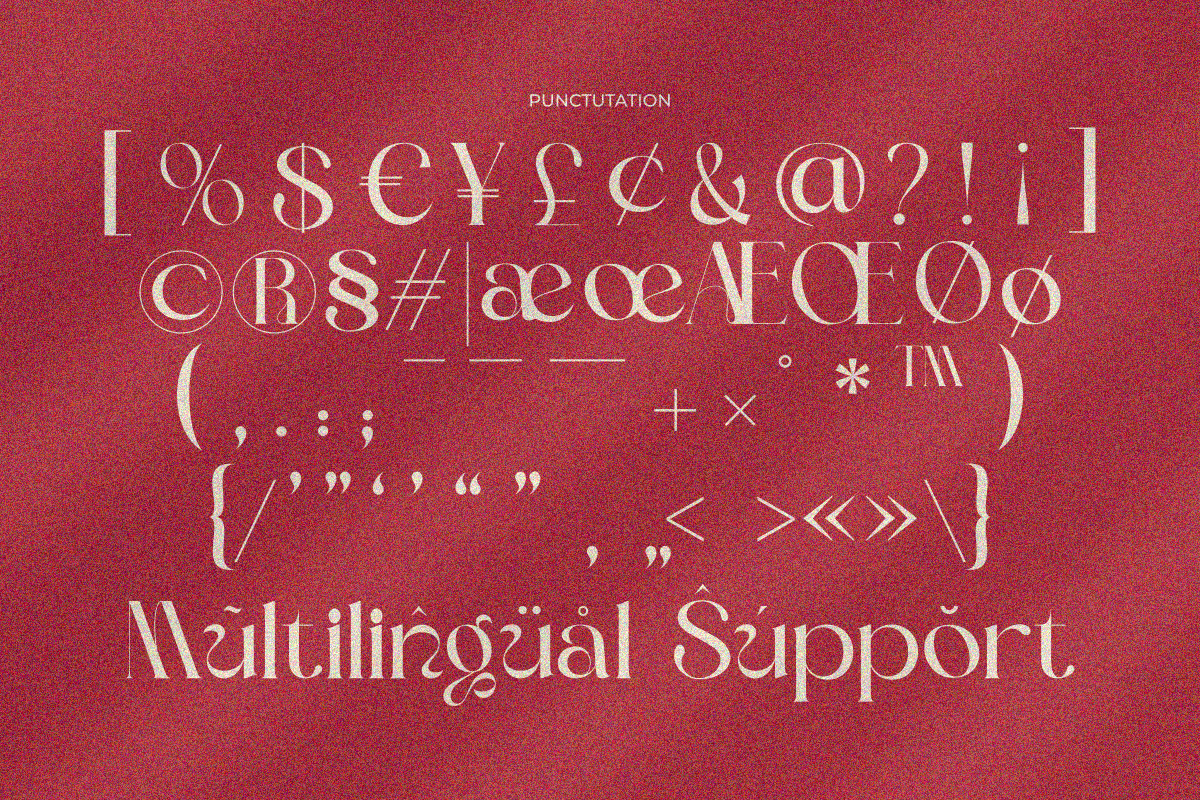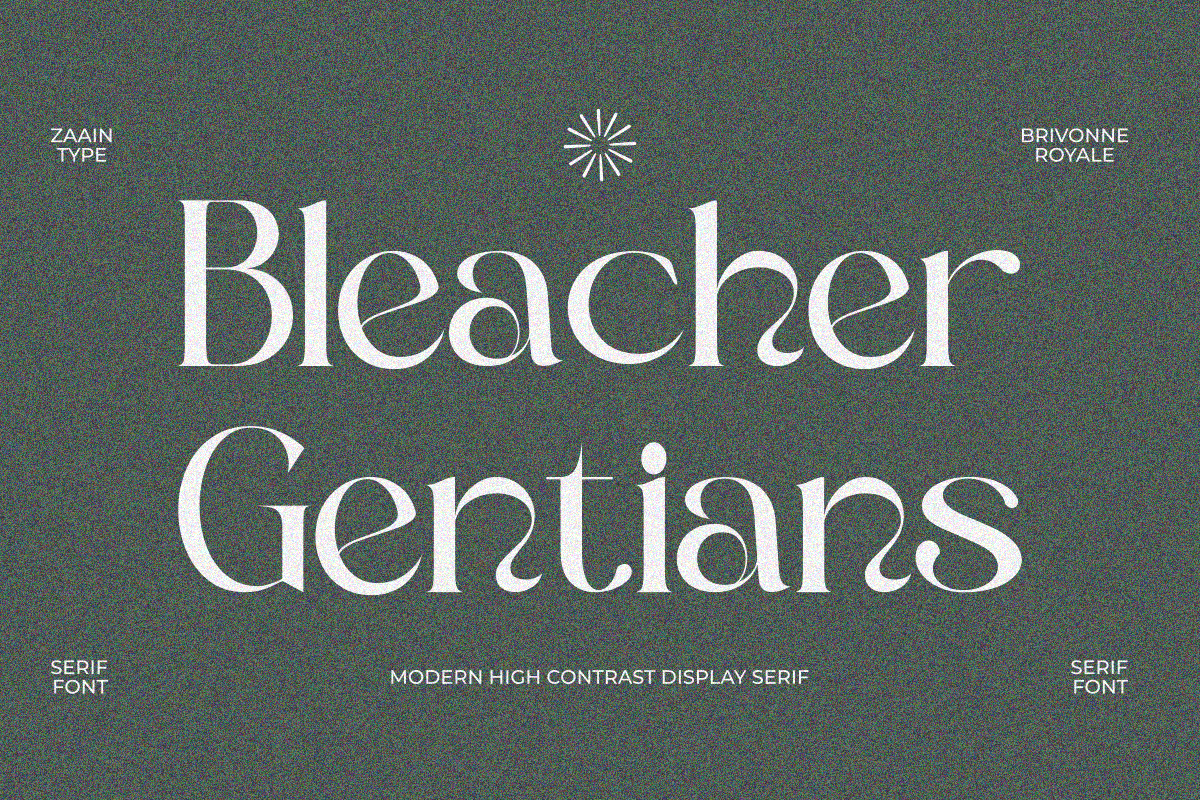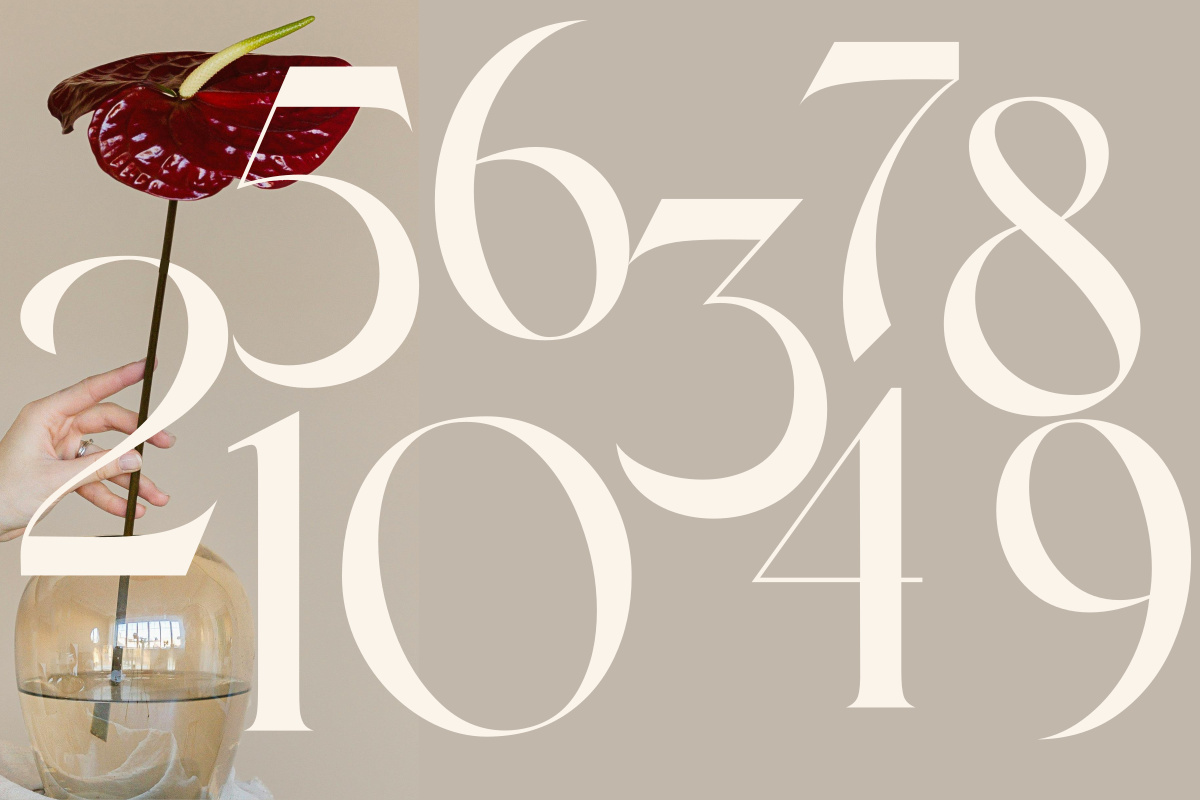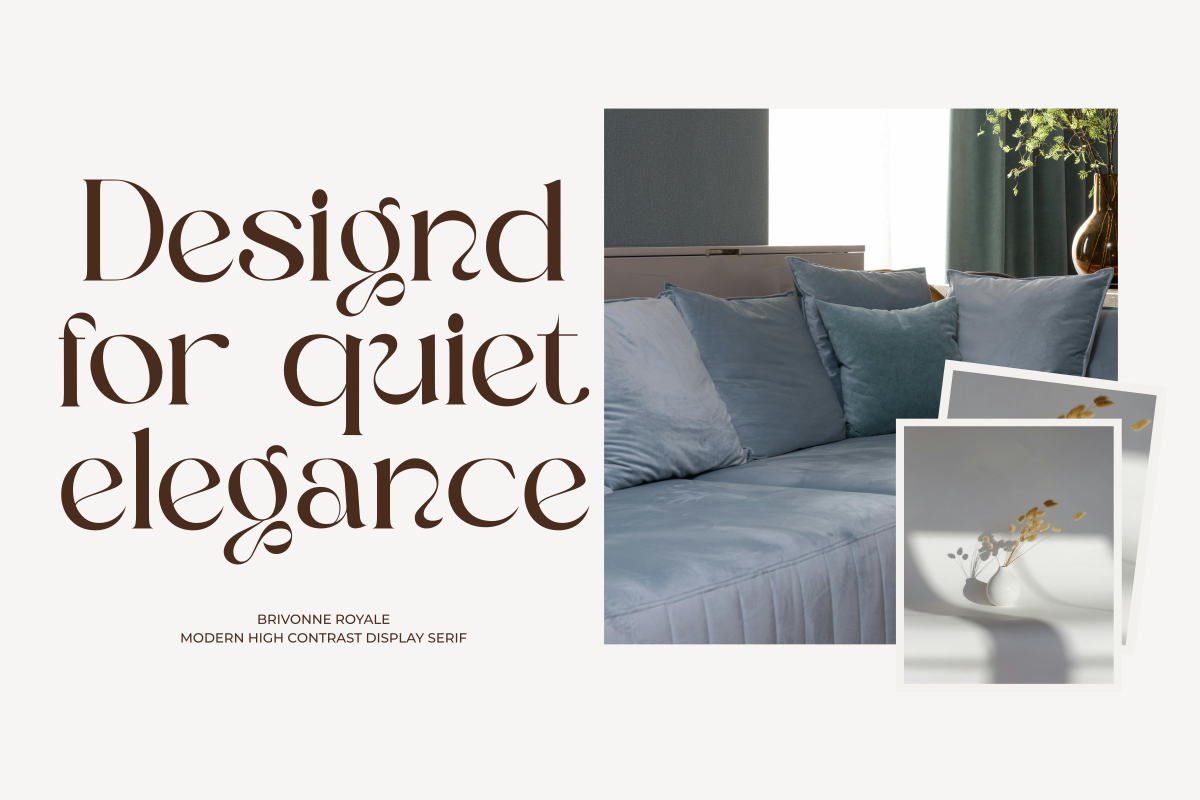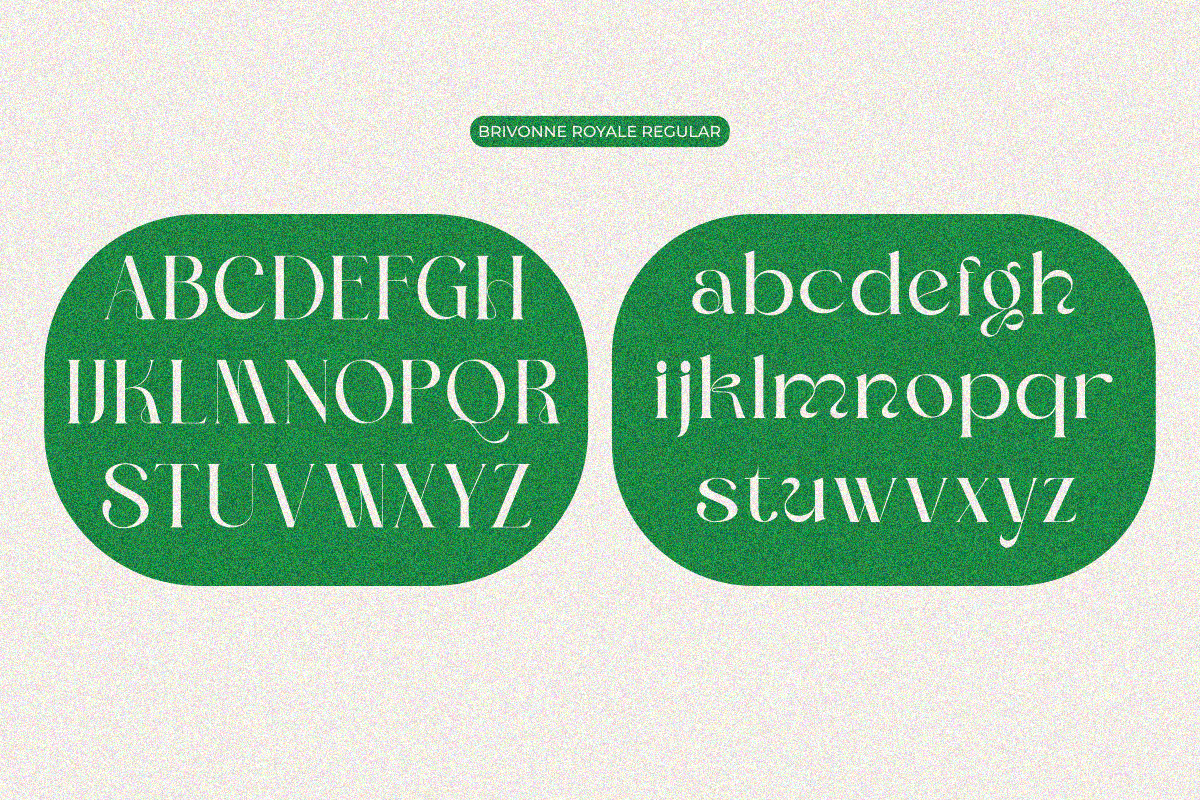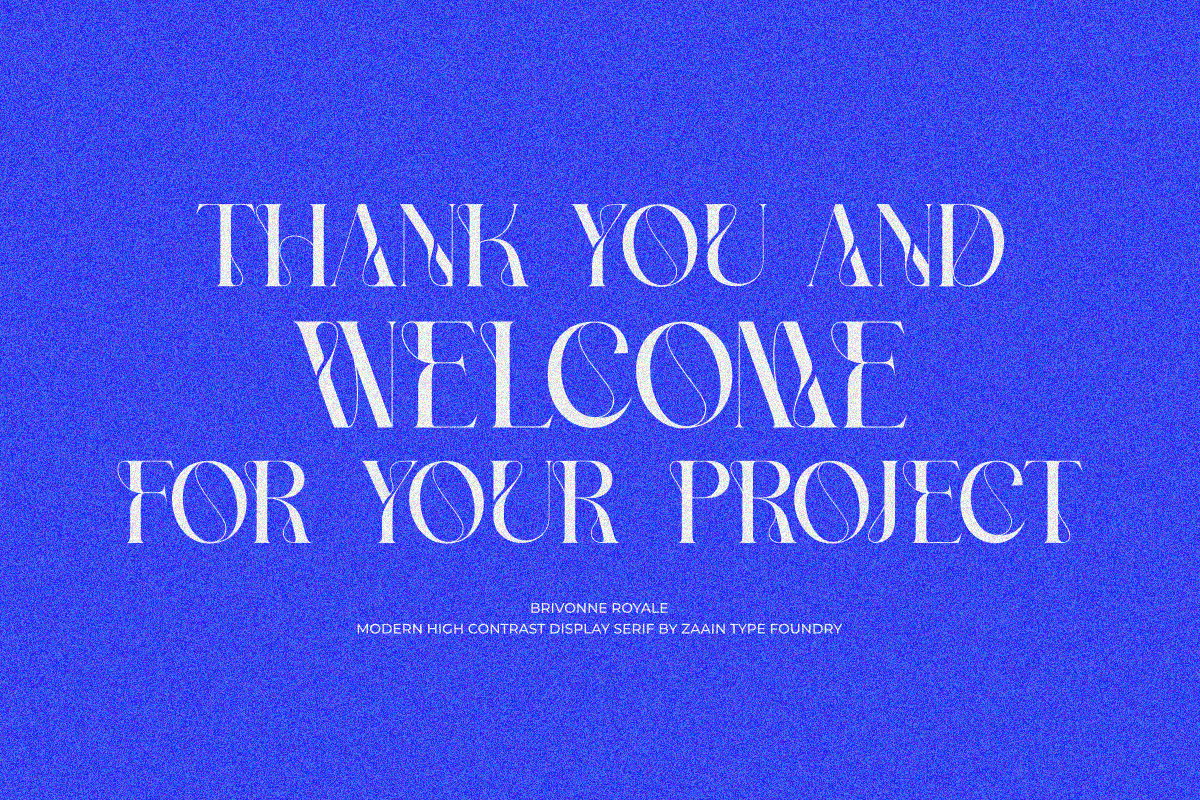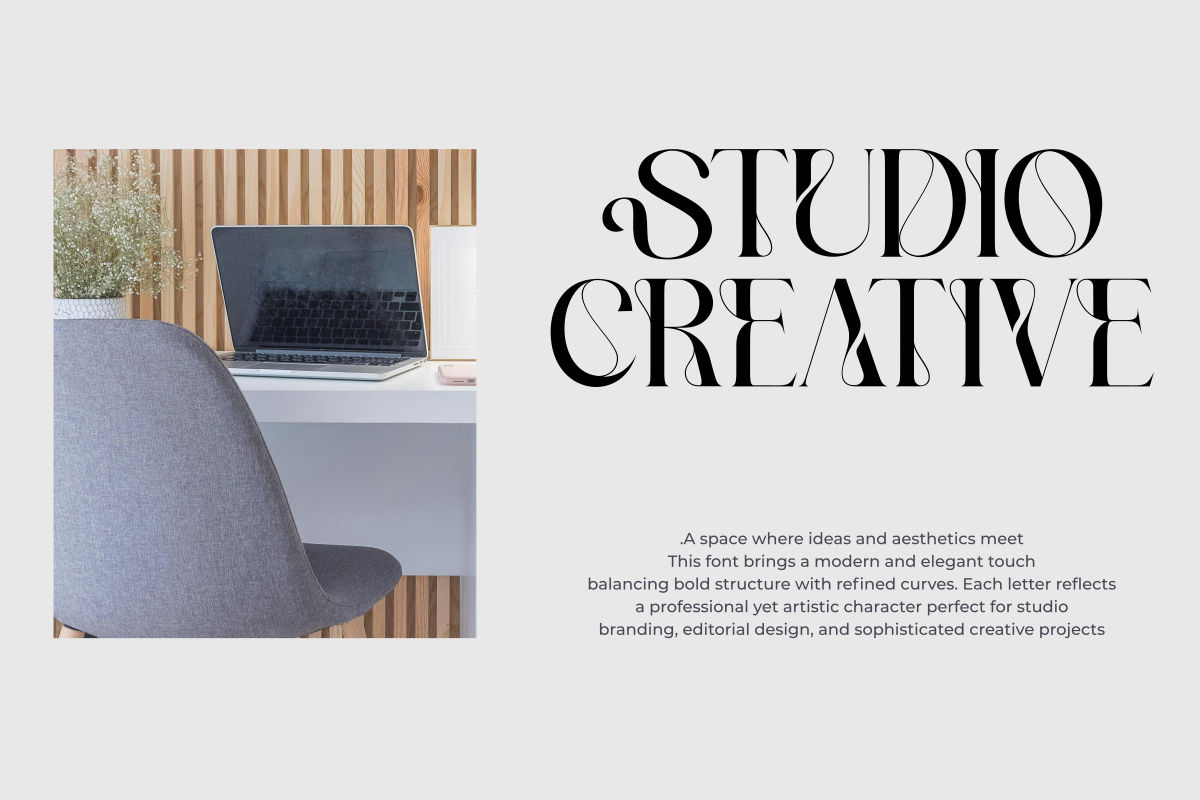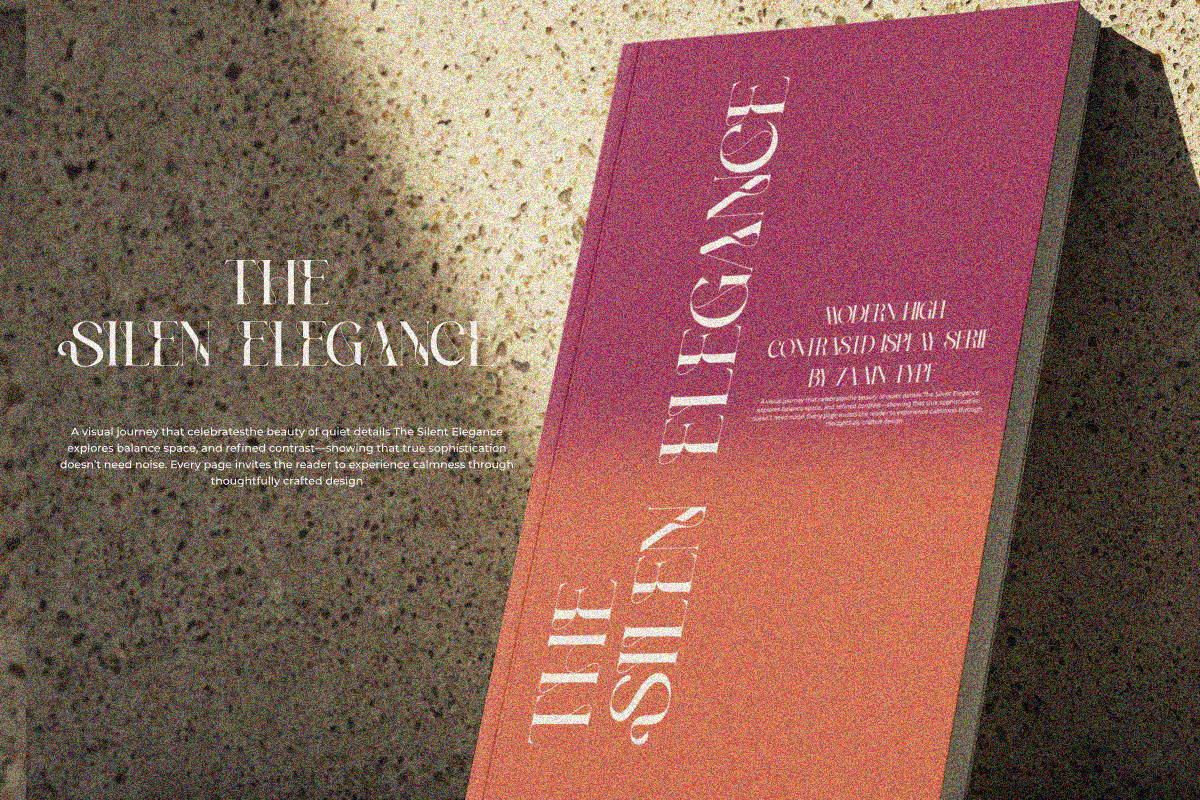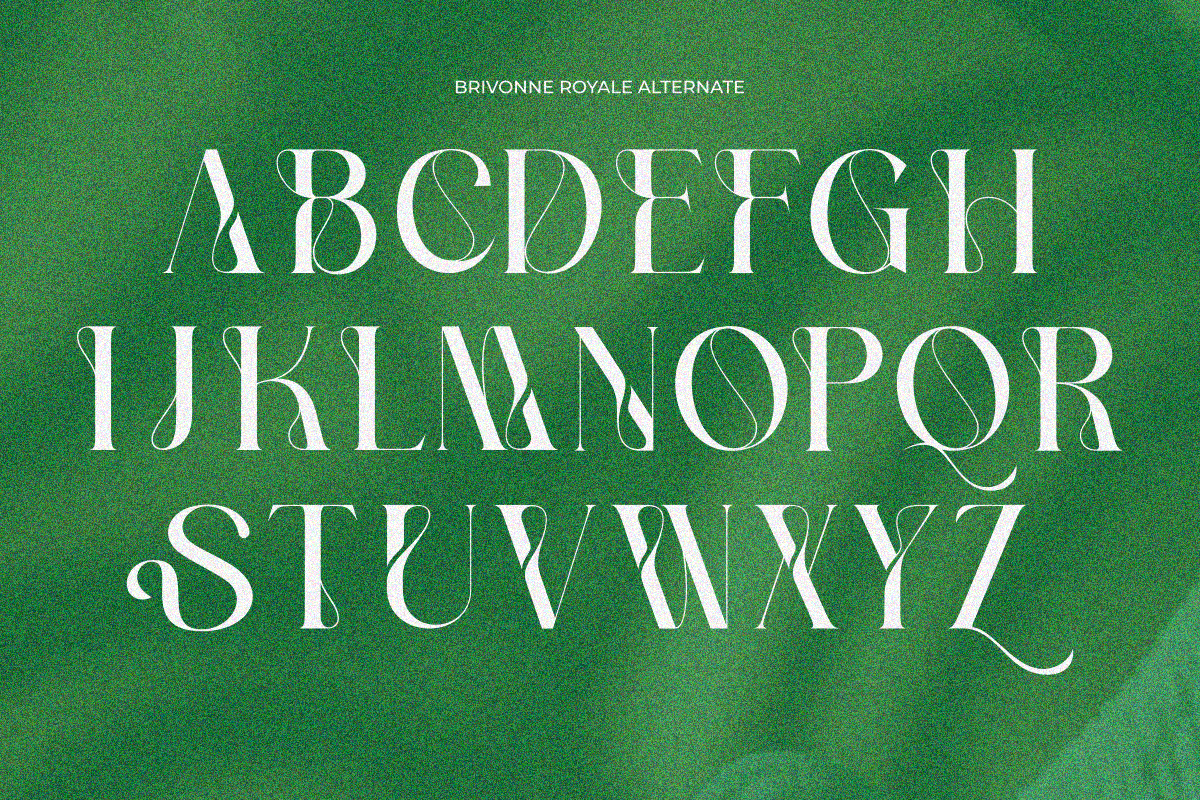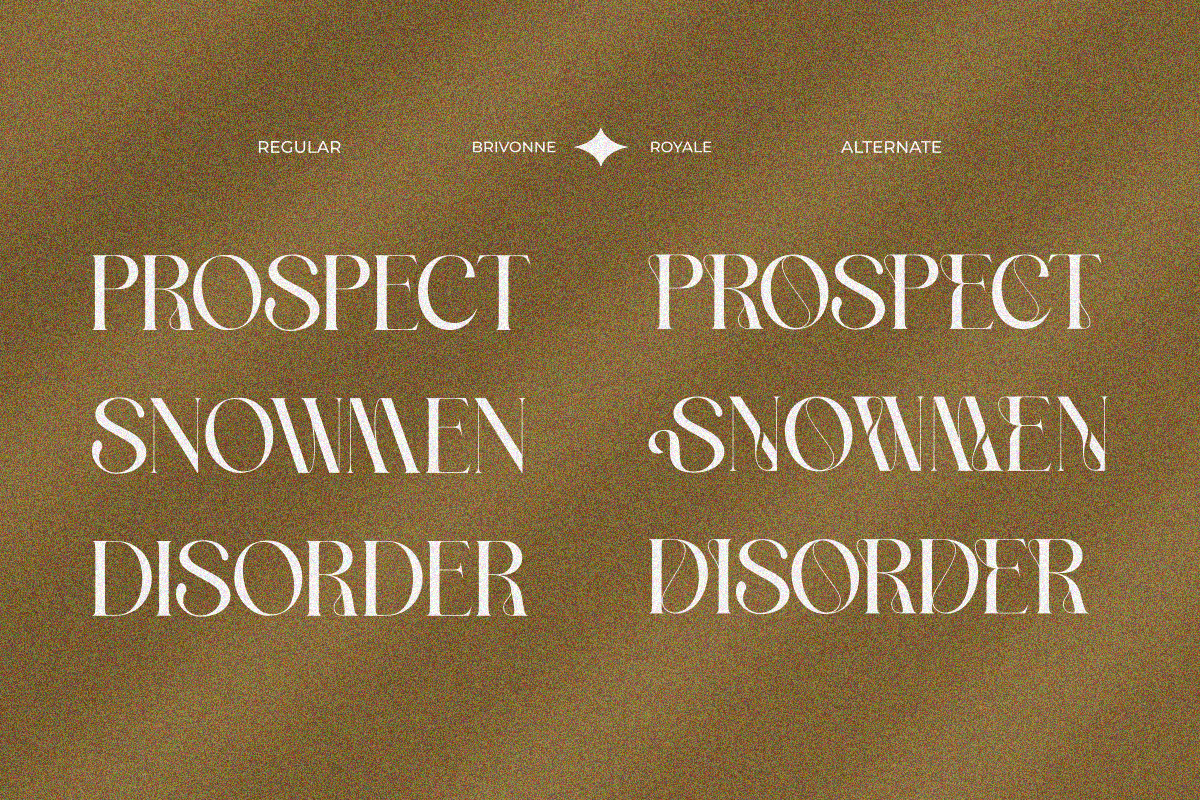
Brivonne Royale
Brivonne Royale is a modern serif font that blends graceful curves with elegant high contrast. Designed to convey luxury and authority, each letterform combines classic aesthetics with a subtle contemporary touch.
With refined serif details, balanced proportions, and shapes that feel bold yet sophisticated, Brivonne Royale is perfect for high-end branding, fashion magazines, premium editorials, exclusive product packaging, and headline designs that demand an elevated presence.
This font delivers a sense of royal sophistication — strong, refined, and highly recognizable, making it an ideal choice for designers seeking a characterful modern serif